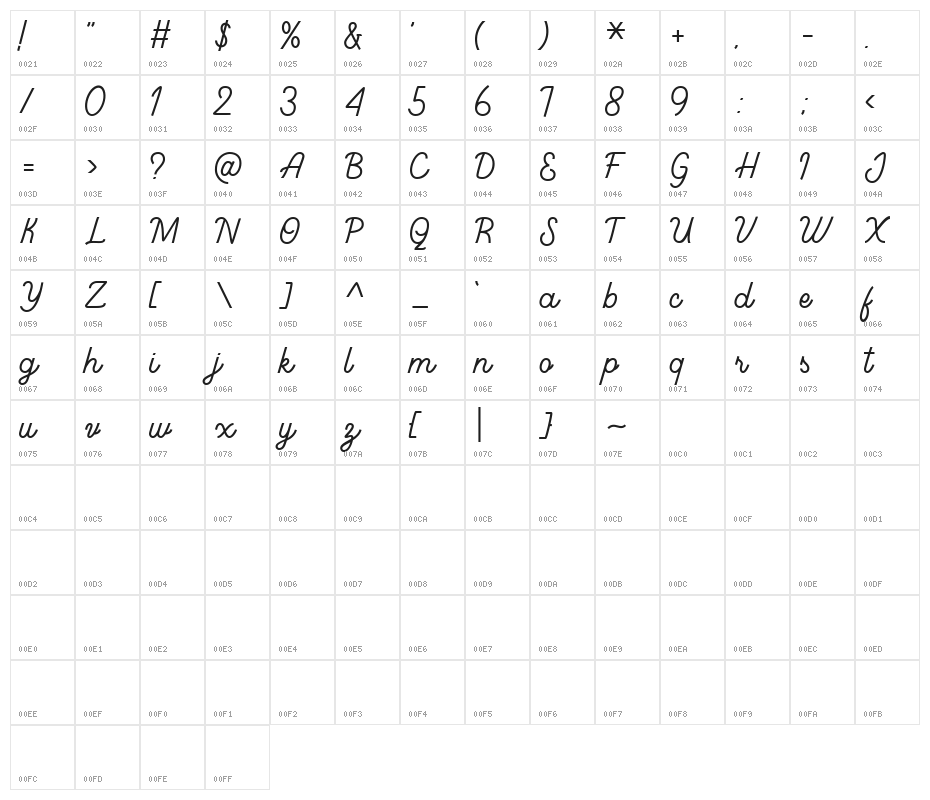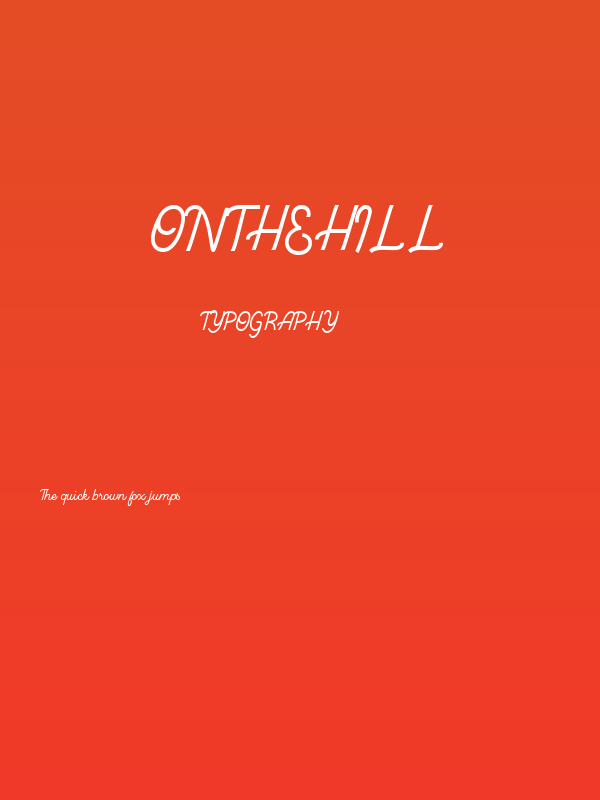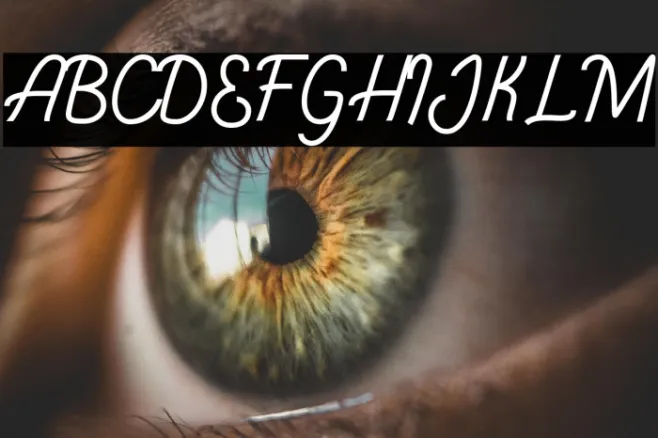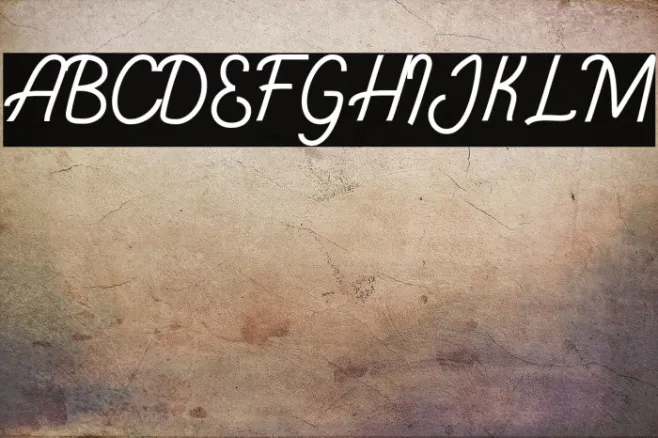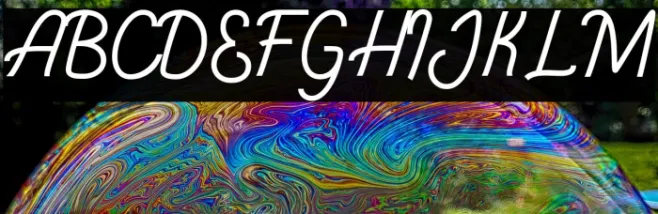
Onthehill Font
Onthehill Description
This font features a flowing, cursive style that mimics elegant handwriting. The uppercase letters are slightly more structured, maintaining a consistent height with gentle curves and loops, while the lowercase letters exhibit a more fluid and connected form. The numerals and special characters follow the same cursive style, providing a cohesive look across all characters. The strokes are smooth and consistent, offering a harmonious blend of formality and creativity. This font is ideal for projects that require a personal touch or a sophisticated aesthetic.
| Proposed Projects | Ideal for wedding invitations, greeting cards, personal branding, and elegant logos. |